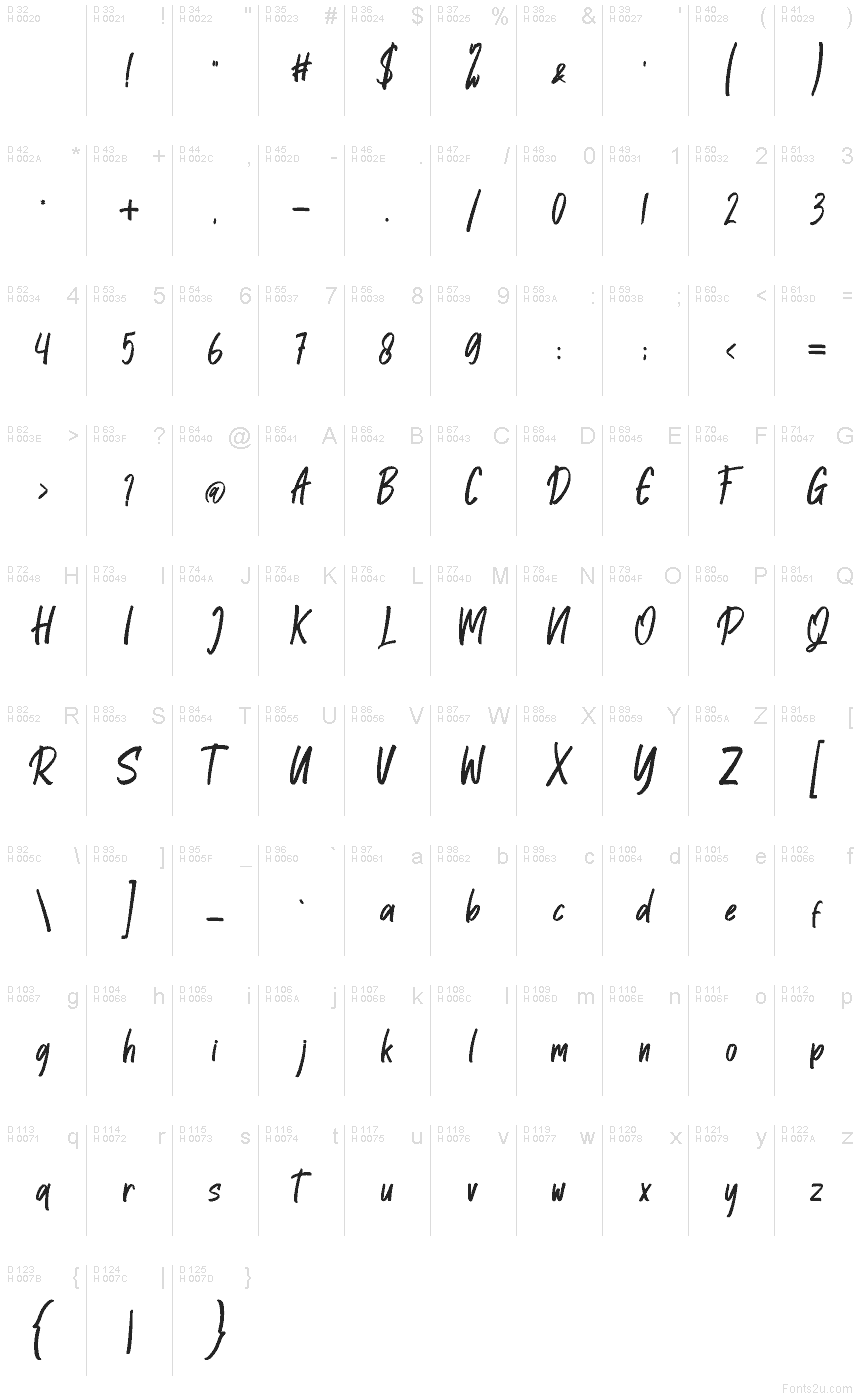
Radhetya
Radhetya font by Skiiller Studio is a free handwritten font with an expressive and modern touch. It combines casual elegance with a smooth flow, creating an approachable and friendly design. Its cursive style imparts a unique, personal feel that engages viewers.
Perfect for invitations, greeting cards, branding projects, advertisements, product packaging, book covers, social media posts, websites, magazines layouts, logos, and stationery designs.